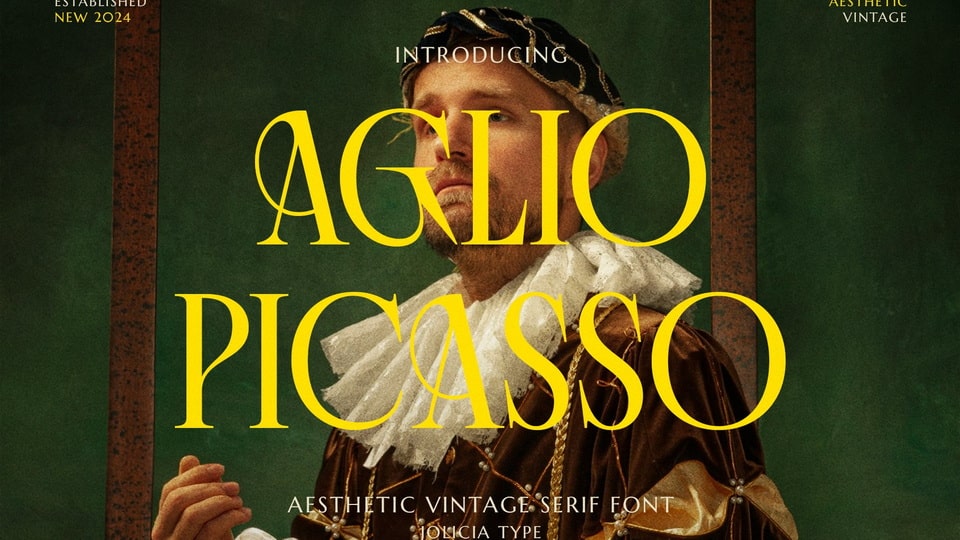
Download Aglio Picasso font, your new go-to vintage serif font with a dash of artistic flair. It’s perfect for those projects where you want to mix elegance with a touch of retro cool.